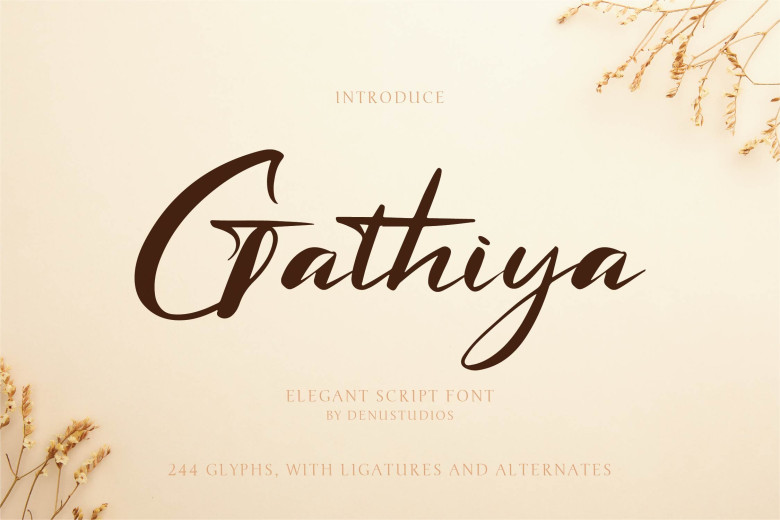
Gathiya Font
Gathiya is a stylish and distinctive script font, drawing readers in with its flowing letters and eye-catching designs. Fusing contemporary with traditional styles, Gathiya radiates sophistication. Perfect for conveying individuality and elegance, this sophisticated font lends classy warmth to branding projects, invitations and creative endeavors alike.
Gathiya Brush Script Font